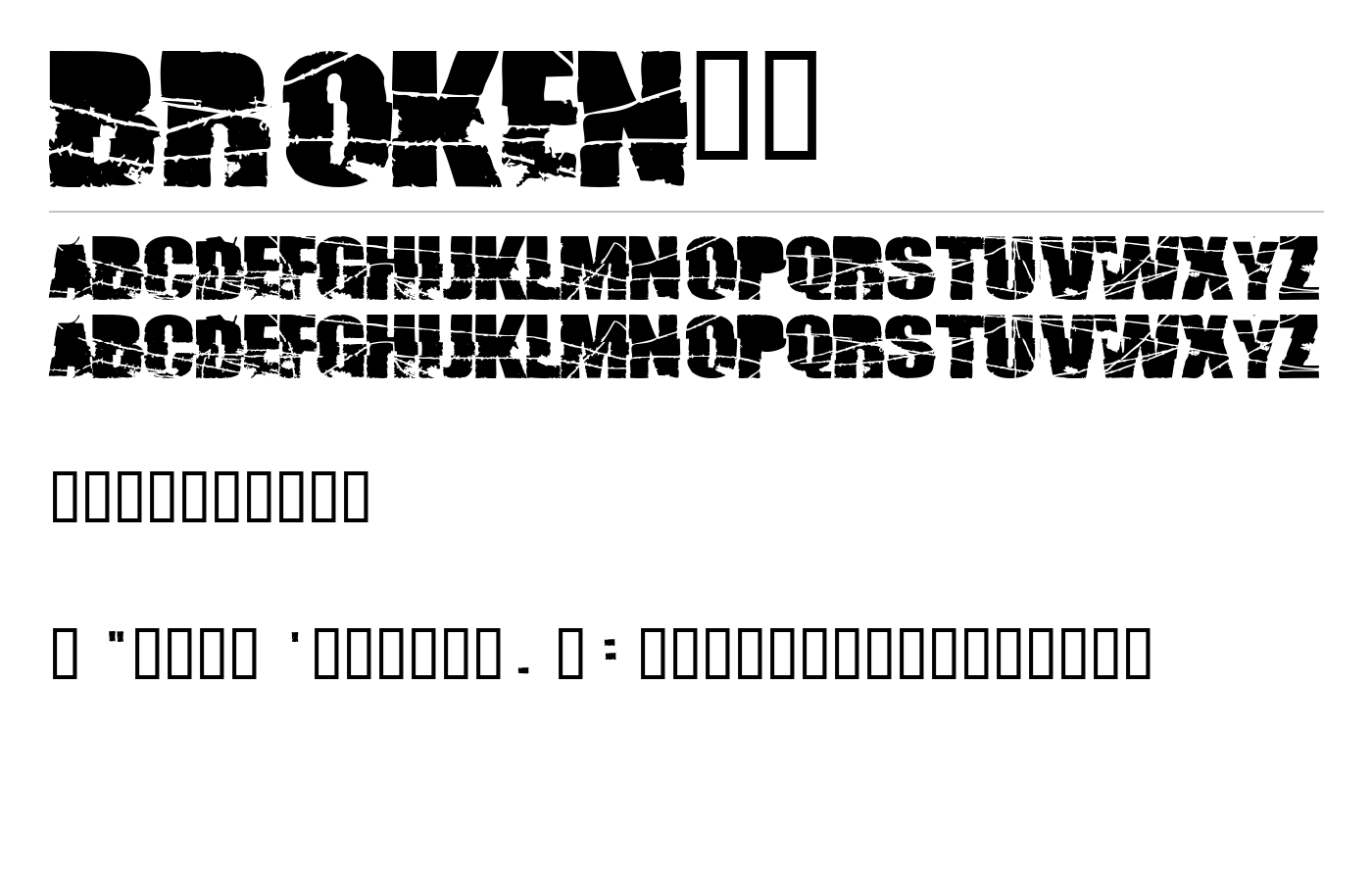
Broken74 is a bold, distressed sans serif font with a strikingly rugged and fractured texture that gives it a raw, edgy personality. Its heavy weight and condensed letterforms make it perfect for impactful headlines, logos, or posters where a gritty, urban aesthetic or rebellious vibe is desired. This font stands out in creative projects that need a strong, expressive presence with a modern, street-style flair.
Broken74 Font
About Broken74 Font